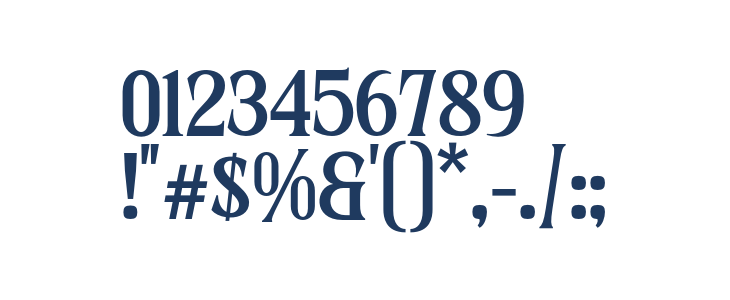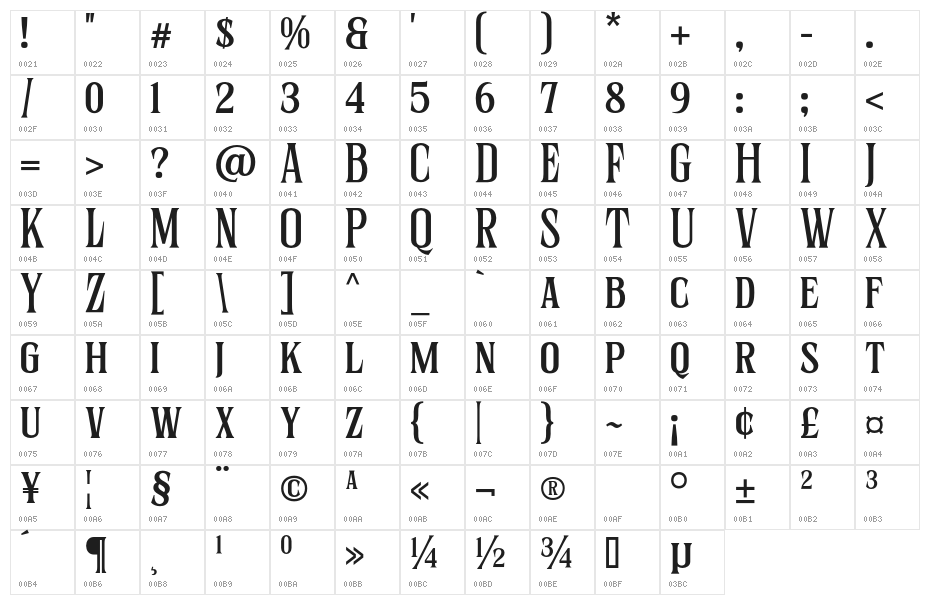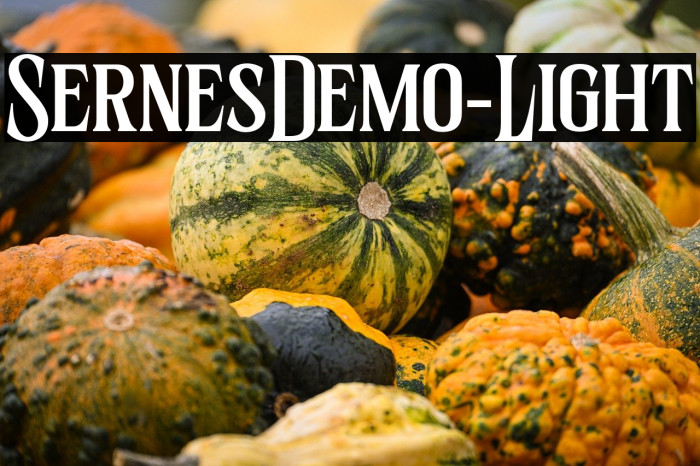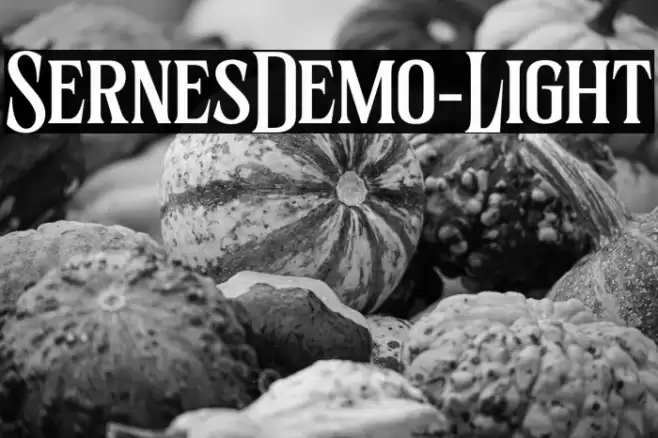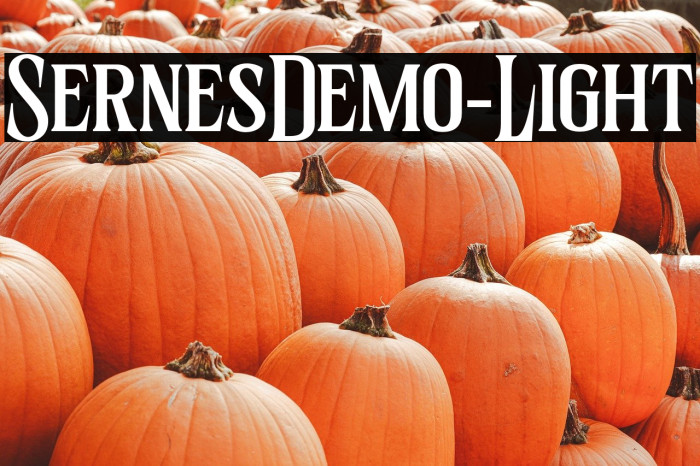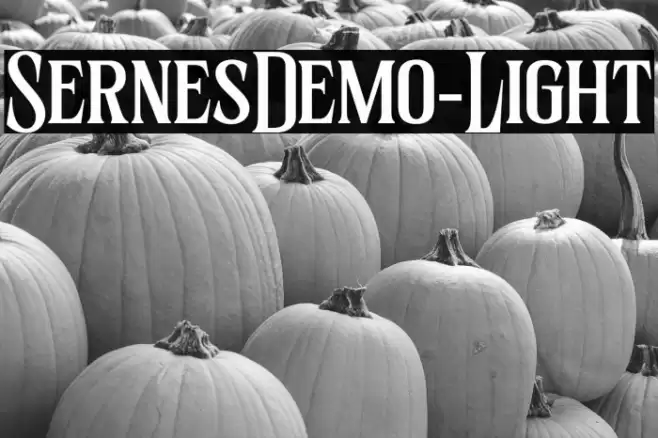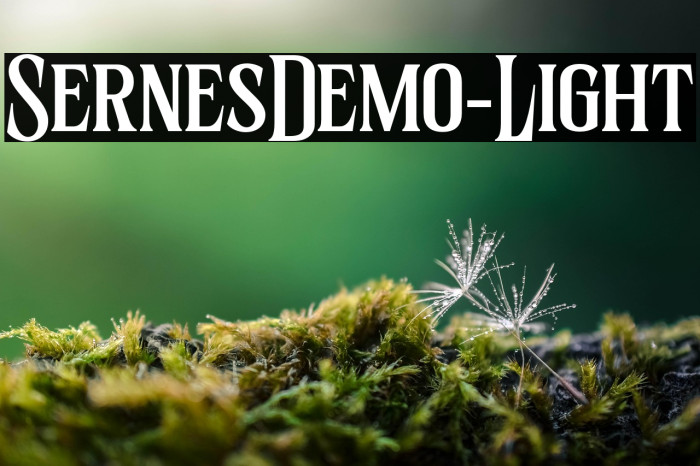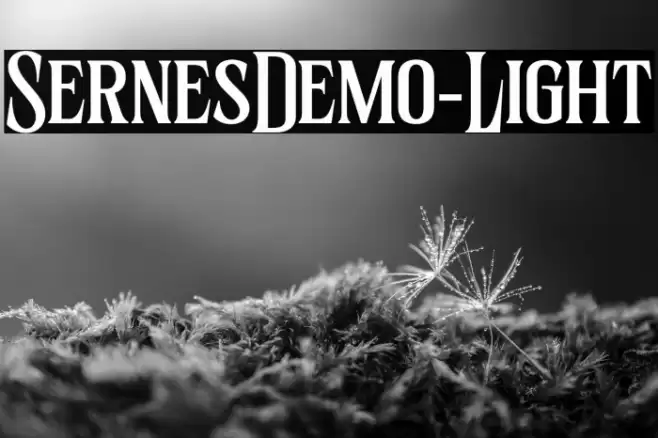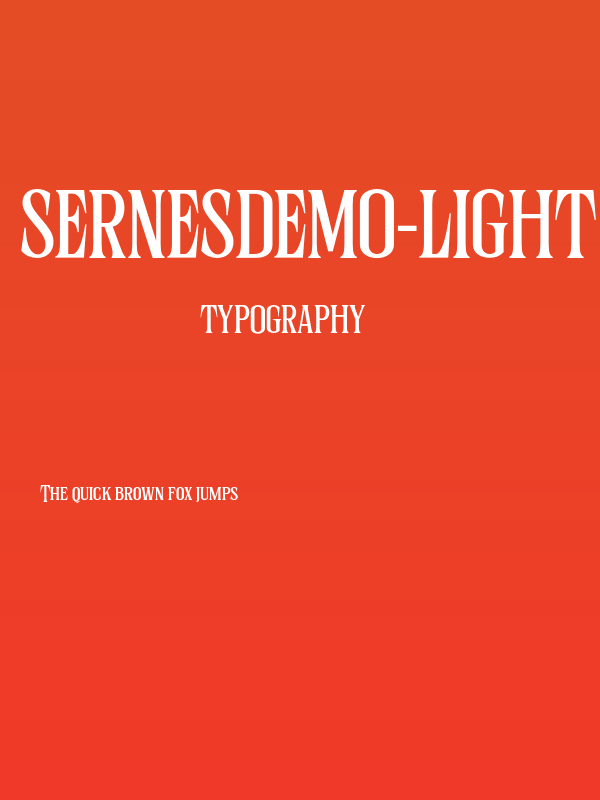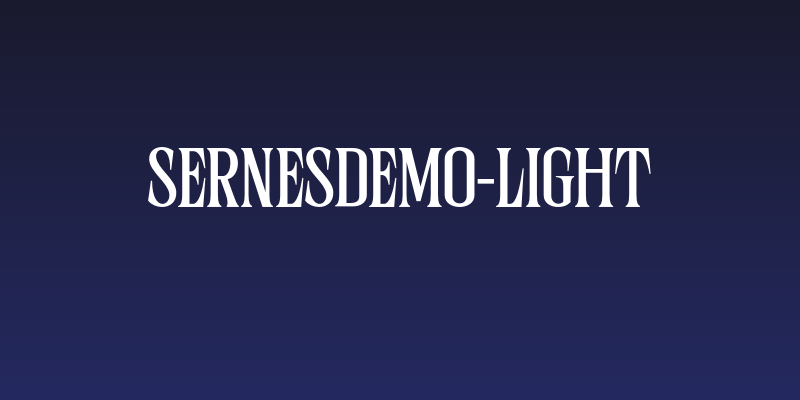
SernesDemo-Light Font
SernesDemo-Light Description
This font features a bold and striking design with high contrast between thick and thin strokes, giving it a dramatic and elegant appearance. The serifs are pronounced and sharp, adding a touch of sophistication and formality. The uppercase letters are tall and commanding, while the lowercase letters maintain a consistent style, ensuring readability. The numerals are distinct and well-proportioned, complementing the overall aesthetic. Special characters are designed with the same attention to detail, making this font versatile for various applications.
| Proposed Projects | Ideal for luxury branding, editorial headlines, book covers, and formal invitations. |